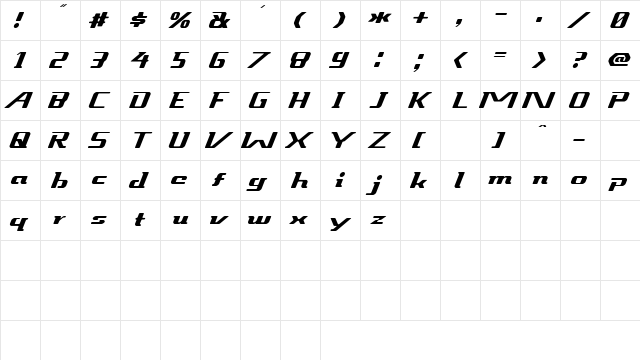
Sneakout Regular
Design Context for Sneakout Typeface
Sneakout is a composed and adaptable typeface that performs quietly and consistently across a wide range of design contexts.